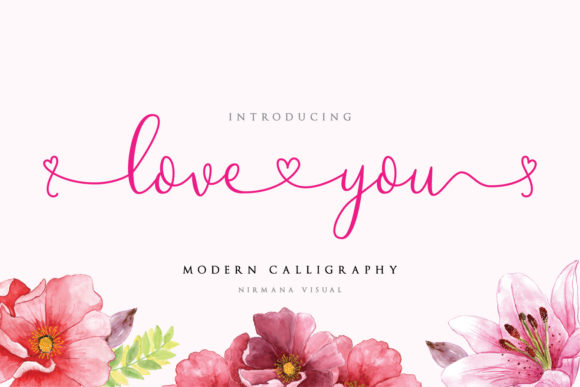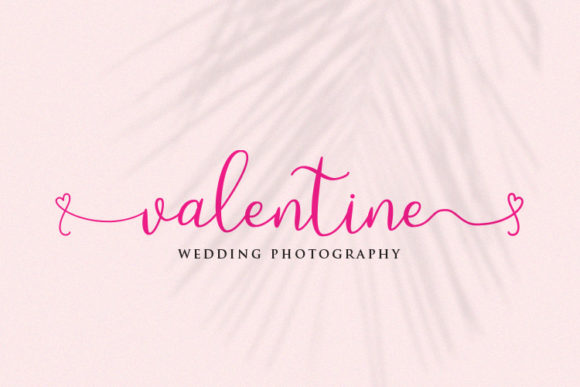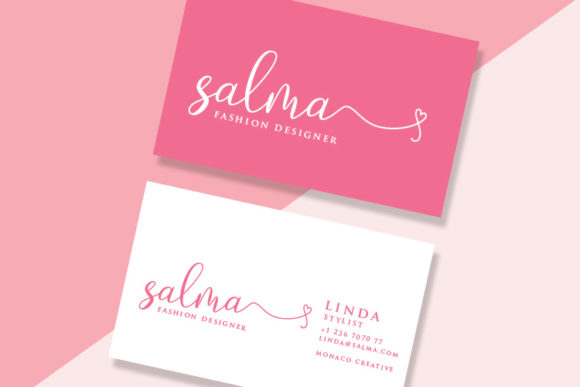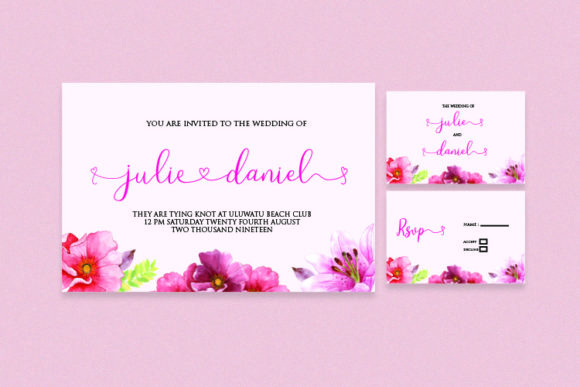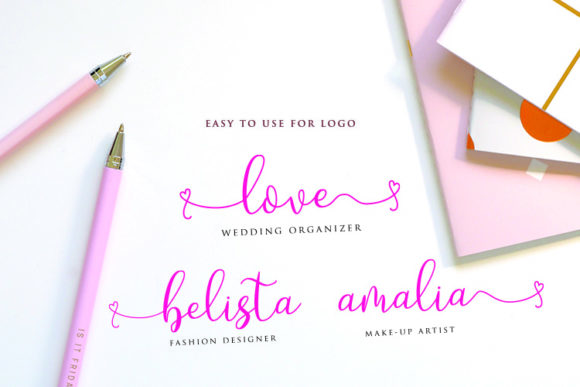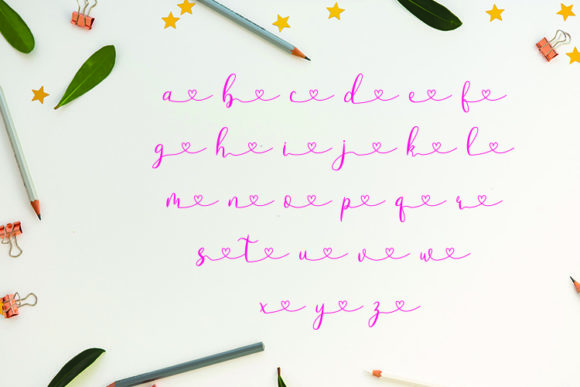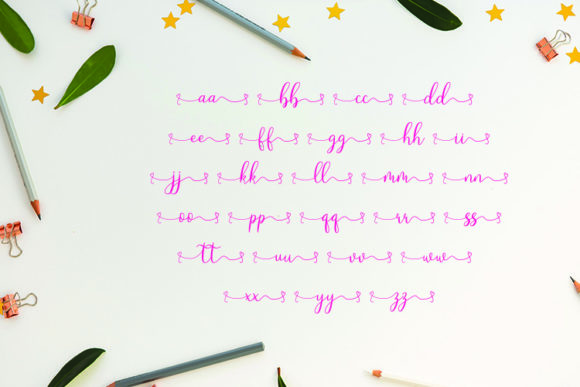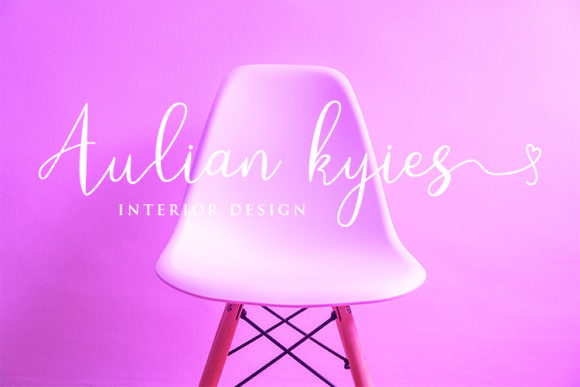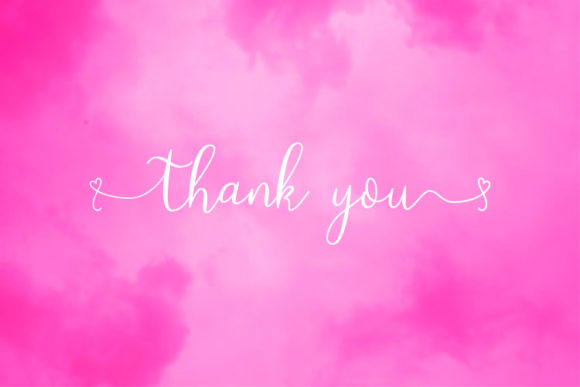
Loveyou Font
About Loveyou Font
Loveyou is a modern calligraphy font with special heart characters. It can add a romantic touch to any crafting project!